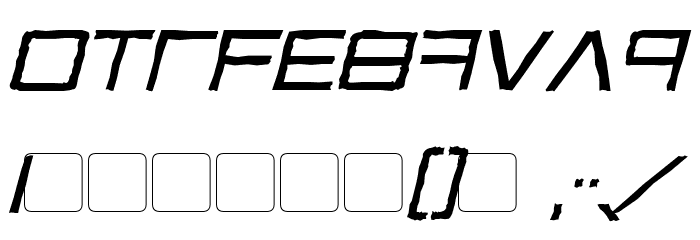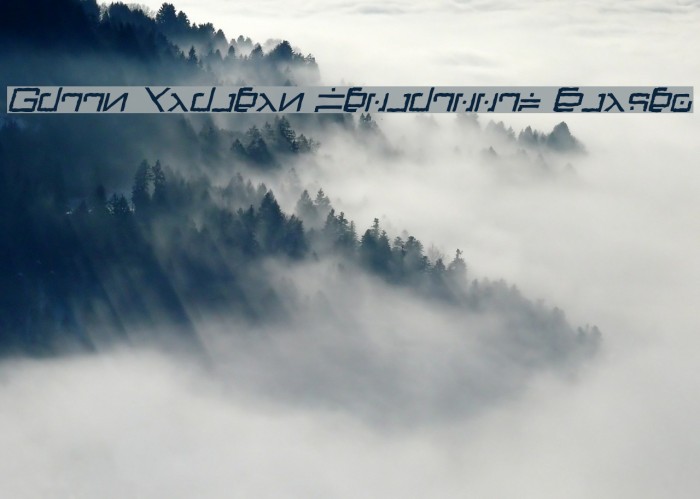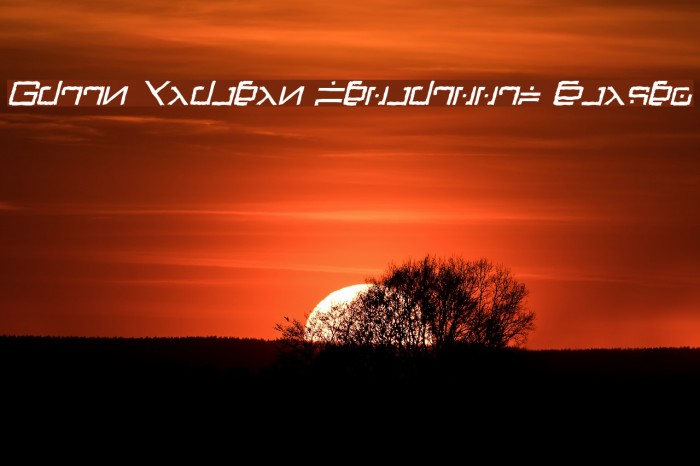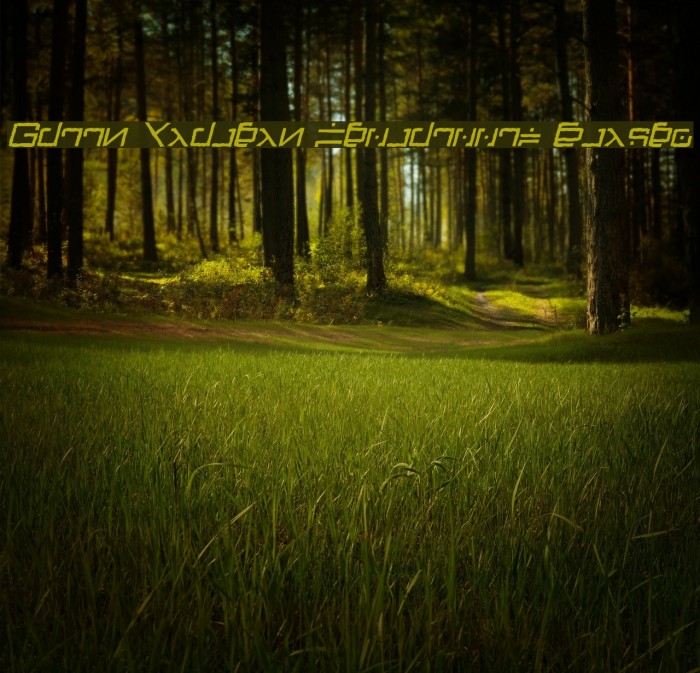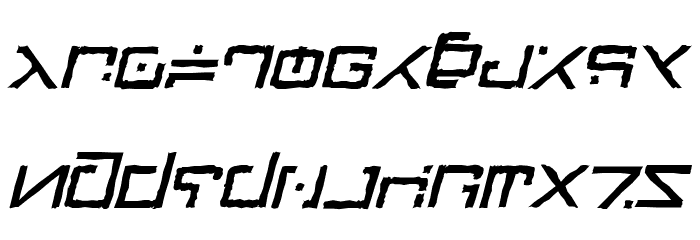
Green Martian Distressed Italic Font
Green Martian Distressed Italic Description
This font features a futuristic and distressed design, characterized by its angular and fragmented letterforms. The italic slant adds a dynamic and forward-moving feel, while the distressed texture gives it a rugged, worn appearance. The characters are uniquely stylized, with sharp edges and irregular shapes, creating a sense of movement and energy. The font's design is reminiscent of sci-fi themes, making it ideal for projects that require a bold and unconventional look. The spacing between characters is relatively tight, enhancing the compact and cohesive appearance of the text.
A futuristic, distressed italic font with angular, fragmented letterforms from Uncategorized fonts.
- Proposed Projects: Ideal for sci-fi themed posters, video game titles, or edgy branding projects.
- Character Spacing: Tight
- Overall Style: Futuristic, Distressed